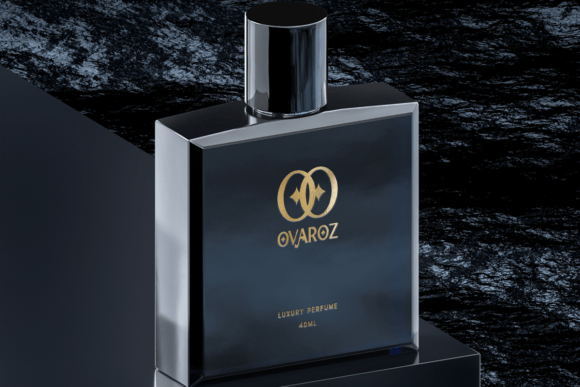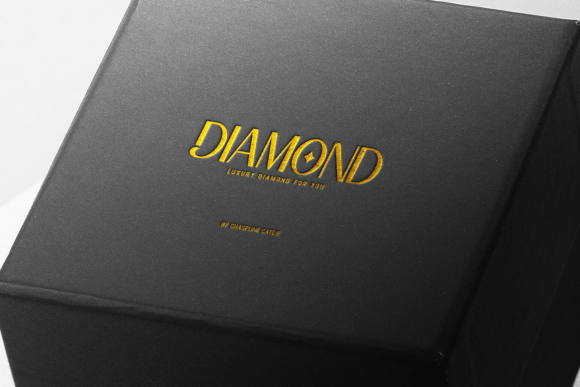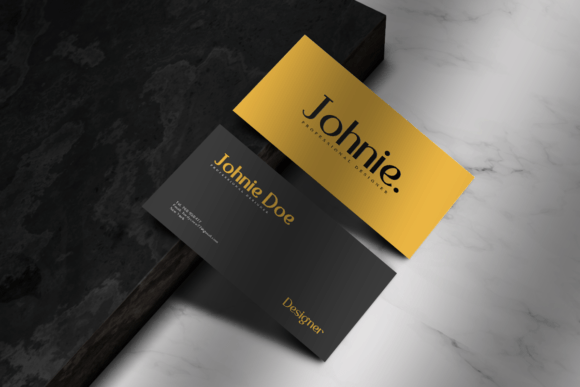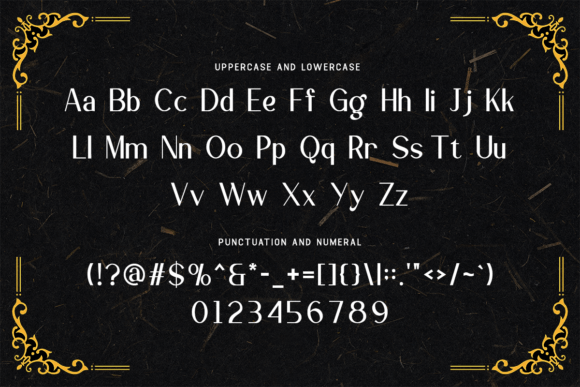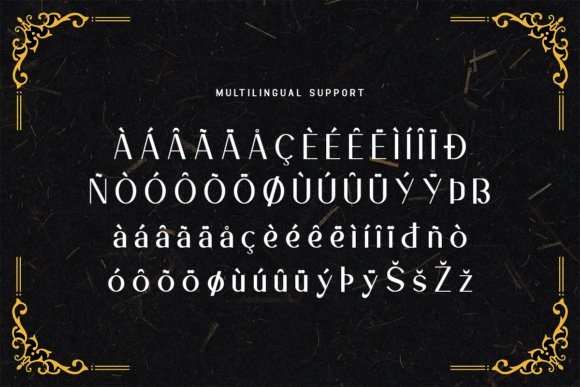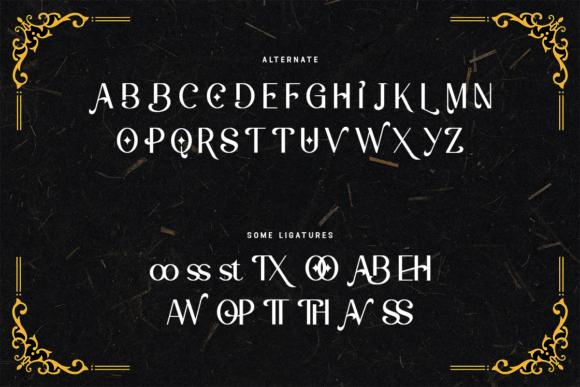
Introducing Copawave Font: Elevate Your Designs with a Modern Twist
In the world of typography, a font can make or break a design. With the vast array of fonts available, it can be challenging to find one that stands out from the crowd. However, if you’re looking for a distinctive and modern sans serif font that brings a fresh and creative touch to your design projects, look no further than Copawave.
A Perfect Blend of Elegance and Readability
Copawave features smooth curves and clean lines, making it a perfect blend of elegance and readability. This font seamlessly combines sophistication with a modern edge, making it perfect for a wide range of applications, including branding, logos, headlines, posters, and web design. Whether you’re a designer, craftsperson, or simply a DIY enthusiast, Copawave is an excellent choice for anyone looking to elevate their designs.
Unique Stylistic Elements
What sets Copawave apart from other fonts is its unique stylistic elements. The font’s distinctive features add a dynamic and contemporary flair that captivates attention and enhances visual appeal. With Copawave, you can add a bold, sophisticated statement to your designs that resonates with your audience.
Copawave is PUA encoded, which means you can access all of the cute glyphs and swashes with ease. This makes it easy to customize your designs and add a personal touch. With Copawave, you can unlock a world of creative possibilities and take your designs to the next level.
Copawave is a versatile font that can be used in a variety of design projects. Here are just a few examples of what you can create with Copawave:
- Branding: Create a lasting impression with a custom logo that showcases your brand’s personality.
- Logos: Design a unique and memorable logo that sets your business apart.
- Headlines: Add a touch of sophistication to your headlines and make them stand out.
- Posters: Create eye-catching posters that grab attention and leave a lasting impression.
- Web Design: Elevate your website’s design with a modern and elegant font that enhances user experience.
Why Choose Copawave?
With so many fonts available, why choose Copawave? Here are just a few reasons why Copawave stands out:
- Unique Design: Copawave’s distinctive design makes it stand out from the crowd.
- Readability: Copawave’s clean lines and smooth curves make it easy to read.
- Versatility: Copawave can be used in a variety of design projects.
- PUA Encoded: Easy access to glyphs and swashes.
In conclusion, Copawave is a modern sans serif font that brings a fresh and creative touch to your design projects. With its unique stylistic elements, smooth curves, and clean lines, Copawave is perfect for designers, craftspersons, and DIY enthusiasts looking to elevate their designs. Whether you’re creating a logo, headline, poster, or website, Copawave is an excellent choice. So why wait? Unlock your creative potential with Copawave and take your designs to the next level.